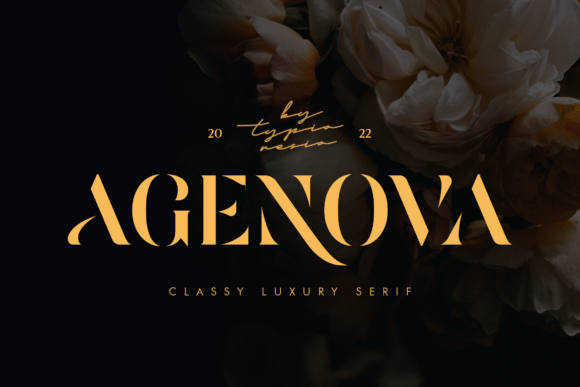
Agenova Font: Elevate Your Brand with Modern Luxury and Bold Stencil Serif
In the world of typography, fonts play a crucial role in shaping the identity of a brand. A well-chosen font can instantly convey a brand’s personality, values, and style. For those seeking a font that exudes modern luxury, boldness, and classy glamour, Agenova Font is an excellent choice. In this article, we’ll explore the features and benefits of Agenova Font, and how it can elevate your brand’s visual identity.
What is Agenova Font?
Agenova Font is a modern luxury bold stencil serif font, designed to add a touch of classy glamour to any brand. Its unique blend of bold and elegant lines makes it perfect for luxury logos, branding, editorial design, and more. The font is PUA encoded, which means you can access all the glyphs and swashes with ease, giving you endless creative possibilities.
Use Cases for Agenova Font
Agenova Font is versatile and can be used in various projects, including:
- Luxury logo and branding
- Classy editorial design
- Woman’s magazines
- Cosmetic brands
- Fashion promotional materials
- Art gallery branding
- Museum branding
- Boutique branding
- Stationery design
- Blog design
- Modern advertising design
- Card invitations
- Art quotes
- Home decor
- Book/cover titles
- Special events
Benefits of Using Agenova Font
Agenova Font offers several benefits that make it an excellent choice for brands seeking to elevate their visual identity:
- Unique and distinctive: Agenova Font’s bold stencil serif design sets it apart from other fonts, making it perfect for brands that want to stand out.
- Highly versatile: The font can be used in various projects, from luxury logos to editorial design, and more.
- Modern and luxurious: The font’s modern luxury design makes it perfect for brands that want to convey a sense of high-end quality and sophistication.
Design Tips for Using Agenova Font
To get the most out of Agenova Font, here are some design tips to keep in mind:
- Pair with neutral colors: Agenova Font looks stunning when paired with neutral colors like black, white, and gray.
- Experiment with glyphs and swashes: Take advantage of the font’s PUA encoding and experiment with different glyphs and swashes to add visual interest.
- Use for headlines and titles: Agenova Font is perfect for headlines and titles, where its bold and elegant design can shine.
- Balance with simple typography: Balance Agenova Font with simpler typography to create visual hierarchy and avoid overwhelming the design.
Agenova Font is an excellent choice for brands seeking to elevate their visual identity with modern luxury and bold stencil serif typography. Its versatility, ease of use, and unique design make it perfect for a wide range of projects. By incorporating Agenova Font into your design, you can add a touch of classy glamour and sophistication to your brand, setting it apart from the competition.